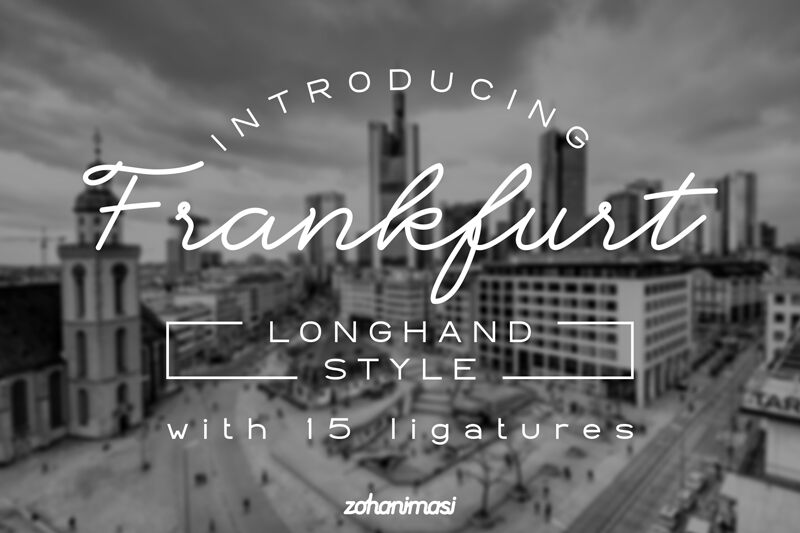
Frankfurt, designed by Zohan Nur Muchlis, is a charming vintage handwritten font that adds a touch of nostalgia to any project.
Its light weight gives it an airy and delicate feel, ideal for wedding invitations, love letters, or heartfelt greetings. This typeface effortlessly captures the elegance of the past and is perfect for creating stylish branding materials such as logos or labels for artisanal products. With Frankfurt, you can transport your audience to a bygone era while still maintaining a contemporary edge.
Let this font bring your designs to life with its timeless appeal.